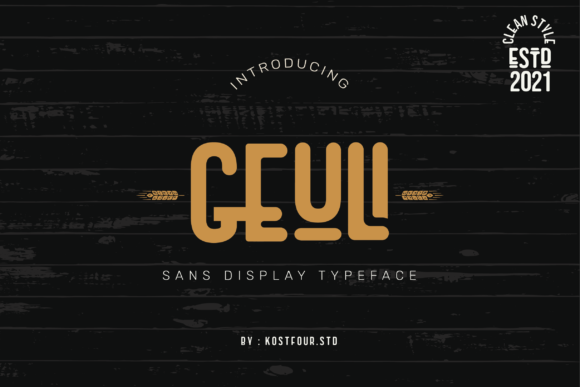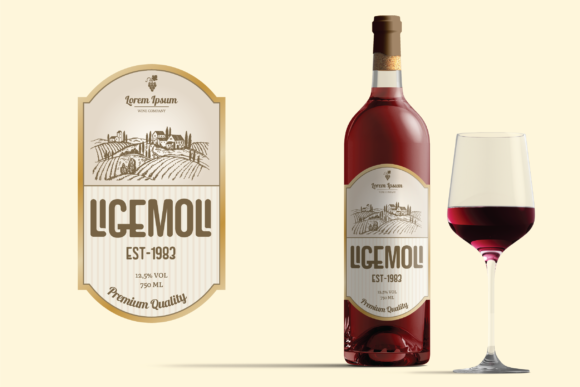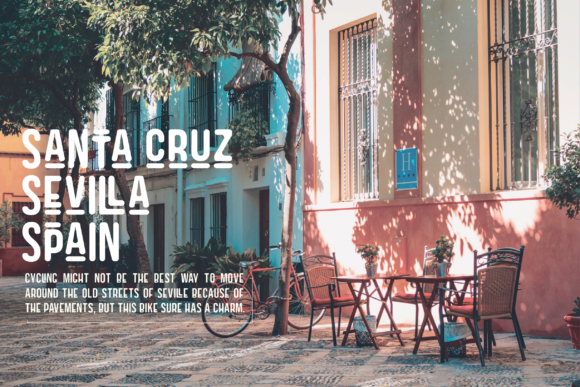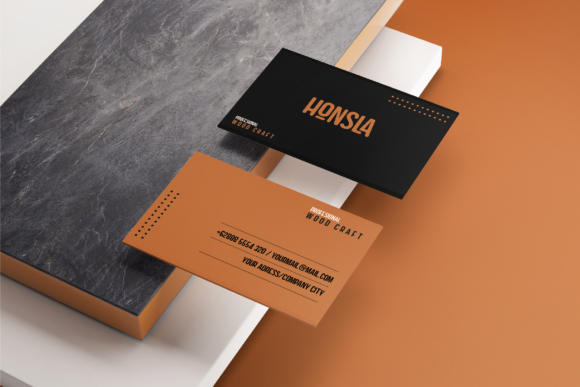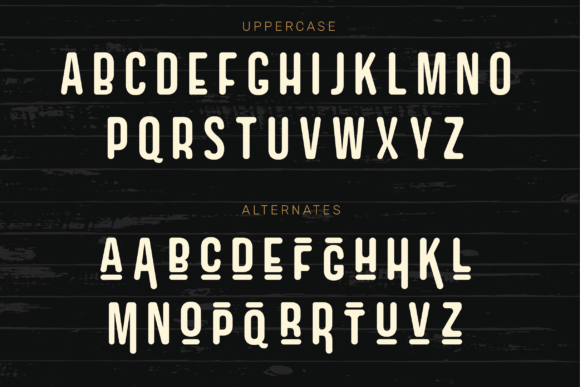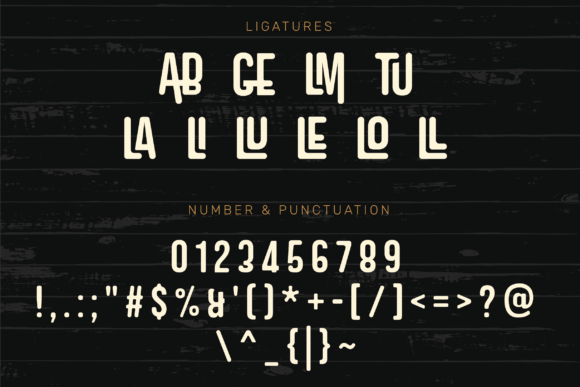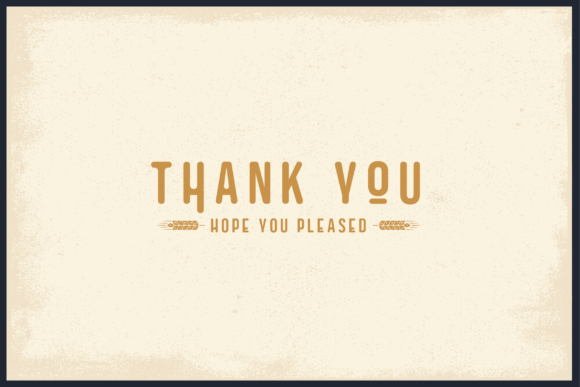
Geuli Font
Geuli Font: A Cool and Minimalist Display Typeface for Modern Designs
Geuli font, a cool and modern minimalist display typeface designed to bring a unique touch to your creative projects. This versatile font is perfect for various applications, from web designs to business cards, and anything that requires a distinctive and contemporary look.
Key Features of Geuli Font
• Modern Minimalist Style: Adds a sleek, contemporary touch to text
• Versatile Application: Ideal for web designs, business cards, and more
• Unique Character: Ensures your content stands out with a distinctive look
• Display Font: Perfect for headlines, logos, and eye-catching designs
Perfect for Contemporary and Stylish Projects
Geuli font excels in creating:
• Eye-catching website headers
• Modern business cards
• Striking logo designs
• Stylish social media graphics
• Contemporary branding materials
Why Choose Geuli Font?
This font’s cool and minimalist design ensures your content makes a lasting impression. Its unique style makes it ideal for designers who want to create impactful, modern visuals that stand out in today’s digital landscape.
Geuli font is more than just a typeface; it’s a design tool that brings coolness and minimalism to your projects. Whether you’re working on web designs, business cards, or creative layouts, this font will help you create designs that truly stand out with its unique style. Add Geuli to your font collection today and experience the transformative power of its cool, minimalist aesthetic on your creative endeavors. Let this modern display font be the secret ingredient that takes your designs from good to exceptionally stylish, setting your work apart in a crowded design landscape. Whether you’re an experienced designer or someone with a passion for modern, minimalist aesthetics, Geuli is your go-to font for embracing contemporary coolness in your work. Its versatility allows it to shine in various applications, from digital designs to print materials, making it a valuable asset in any designer’s toolkit.